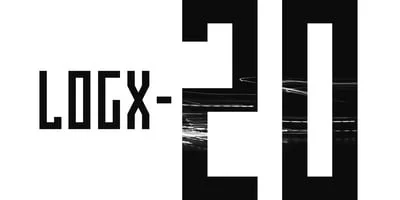
Logx 20 Font
Logx 20 Font is perfect for tech startup logos, software company branding, digital platform interfaces, coding bootcamp materials, programming documentation, cybersecurity firms, data analytics presentations, artificial intelligence marketing, blockchain technology ventures, and any projects that require systematic typography with technological precision and digital innovation appeal.
What makes Logx 20 Font exciting is its algorithmic design that embodies the logical structure and systematic thinking of modern programming with letterforms that appear coded for maximum efficiency and digital optimization. This technical typeface features precise geometric construction with mathematical proportions that reflect the ordered beauty of well-written code, creating an atmosphere of technological sophistication and systematic excellence. The font's algorithmic character makes it perfect for tech companies seeking to communicate intelligence, precision, and the methodical approach that drives breakthrough innovations in the digital age.
Logx 20 Font family includes systematic style variations featuring thin, light, regular, medium, bold, and black weights. The font family also offers monospace versions optimized for coding applications, along with condensed variants that maximize screen real estate. Special features include programming symbols, mathematical operators, and technical ornaments that enhance the digital atmosphere of technology-focused design applications and systematic communications.
Execute excellence with Logx 20 Font and program your brand identity with typography that compiles perfectly every time and delivers systematic performance across all digital platforms. This algorithmic typeface processes maximum impact through logical design, ensuring your technological message runs smoothly with the efficiency and precision that developers and tech professionals respect. Download Logx 20 Font today and debug your design challenges with typography that speaks fluent technology, creating systematic connections with audiences who appreciate the elegant logic and structured thinking that powers our digital world.